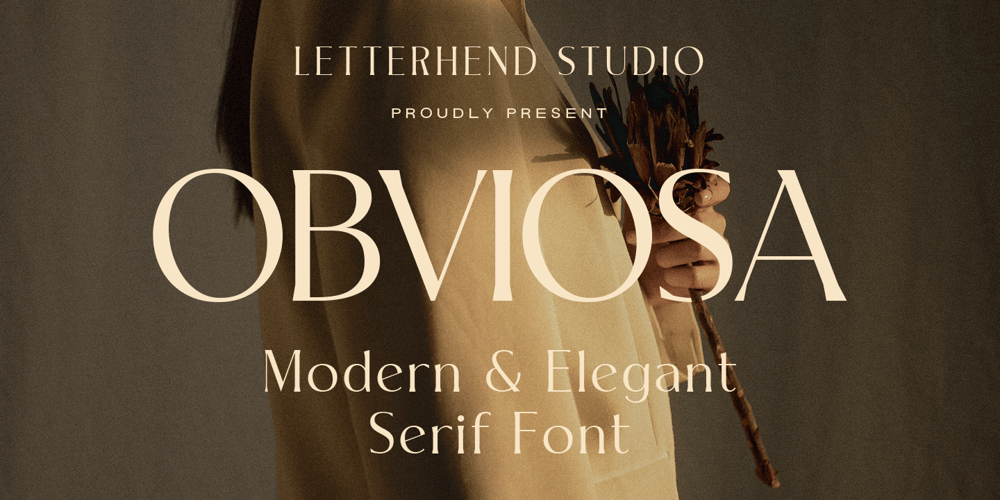
Obviosa
Obviosa font
Obviosa Font Family was designed by Hendry Juanda and published by Letterhend. Obviosa contains 1 styles and family package options. Obviosa is a serif font that is both chic and modern. Its slim strokes create a sense of elegance that is perfect for upscale design projects. Whether you’re creating a wedding invitation or a business presentation, Obviasa will add a touch of refinement and class.Features : Uppercase & lowercase Numbers and punctuation Alternates & Ligatures Multilingual PUA encoded We highly recommend using a program that supports OpenType features and Glyphs panels like many of Adobe apps and Corel Draw, so you can see and access all Glyph variations.